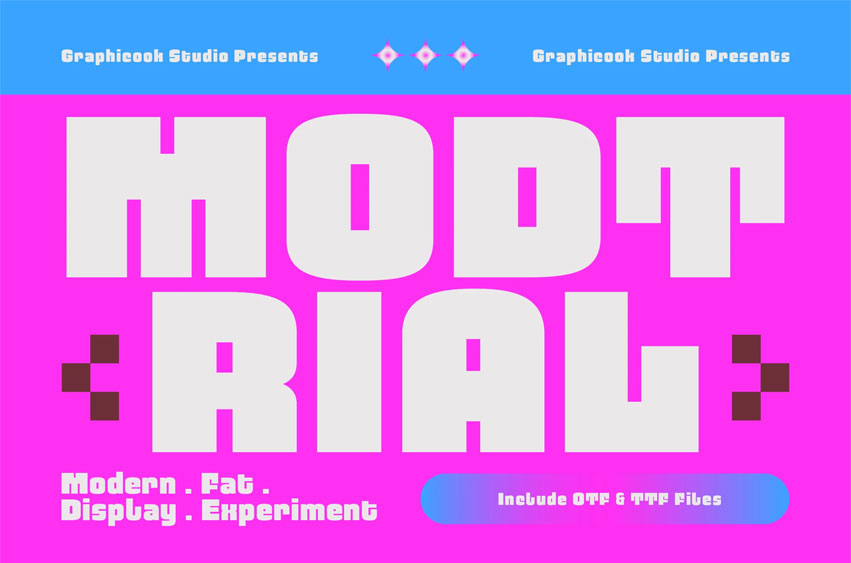
Modtrial Font is an experimental font with fat letterforms and a bold minimalist design, creating a strong and impactful impression. Great for headlines, logos, or posters for electronic music and festivals.
Modtrial is perfect for headlines, logotypes, magazines, packaging, quotes, movies, games, cover albums, book covers, and flyers, it’s a perfect solution for creating eye-catching designs that stand out in any context.